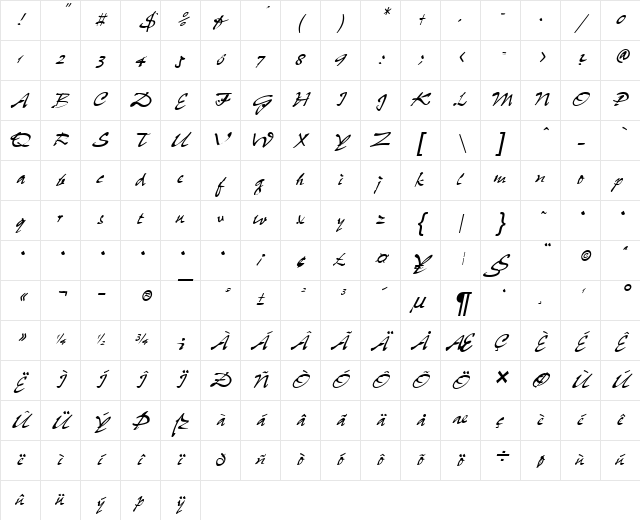
Pepps Regular
Pepps Family
Pepps Regular
Design Context for Pepps
Pepps is a composed and adaptable typeface that performs quietly and consistently across a wide range of design contexts.